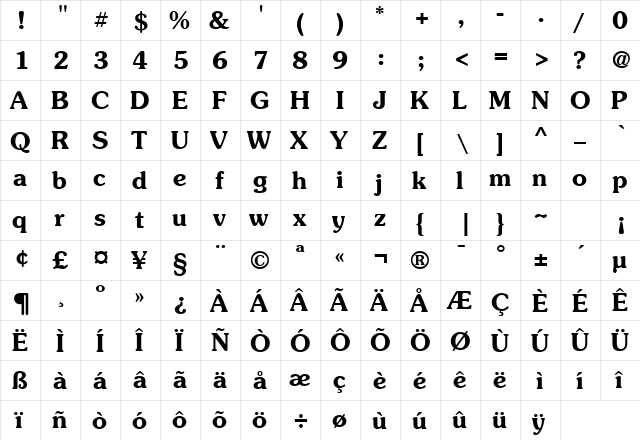
SueVermeer6 DemiSH
Design Context for SueVermeer6 Typeface
SueVermeer6 offers clean, dependable letterforms without strong stylistic allegiance, making it a practical choice for designers who need flexibility.